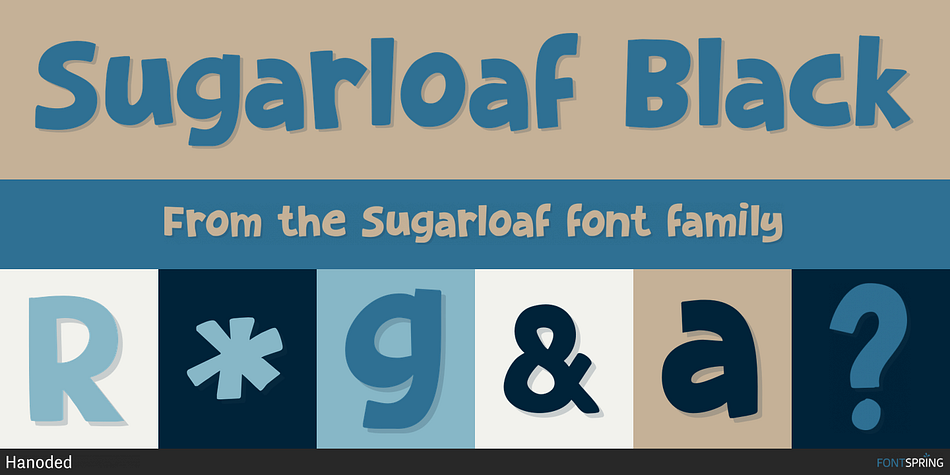
Sugarloaf Black
Designed by David Kerkhoff, Sugarloaf is a hand display font family. This typeface has two styles and was published by Hanoded.
A sugarloaf was a conical lump in which refined sugar was sold until the late 19th century. In Fryslân you can buy sûkerbôle - a yeasty white bread containing large chunks of sugar. I must have been dreaming about the latter when I named this font!
Sugarloaf is a versatile, happy, handmade display font. It comes in an inline and a black style.